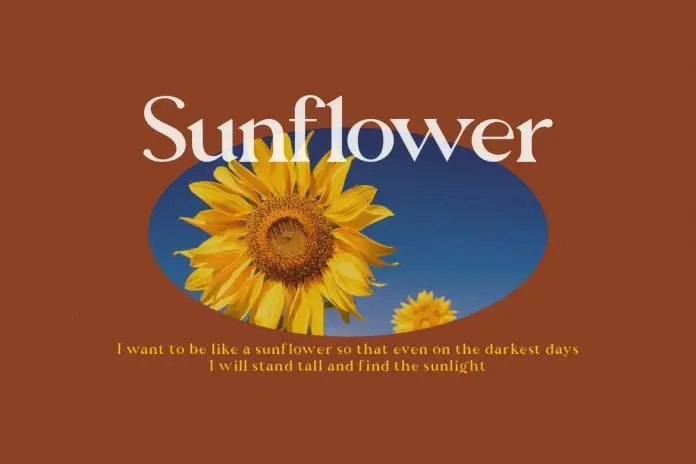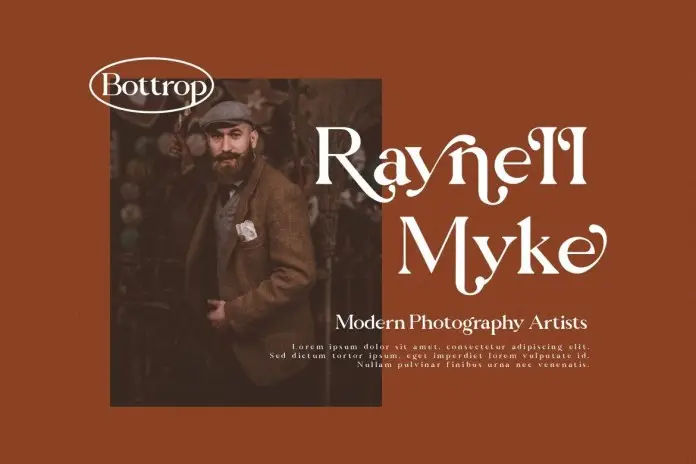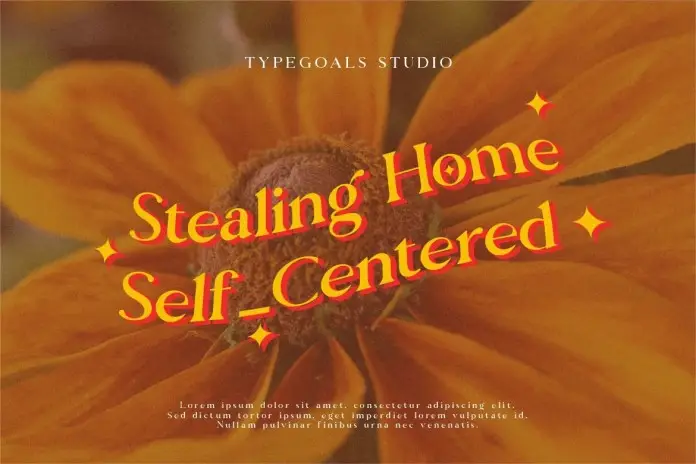
Dalgona Candy Serif Font
The Dalgona Candy Serif Font is a delightful typeface that combines elegance with a playful touch. Featuring a unique serif design, this font is perfect for a variety of applications, from branding to print media.
• Stylish serif design
• Multiple weights available
• Special characters and ligatures included
Ideal for logos, invitations, posters, and web design, the Dalgona Candy Serif Font adds a charming flair to your projects.